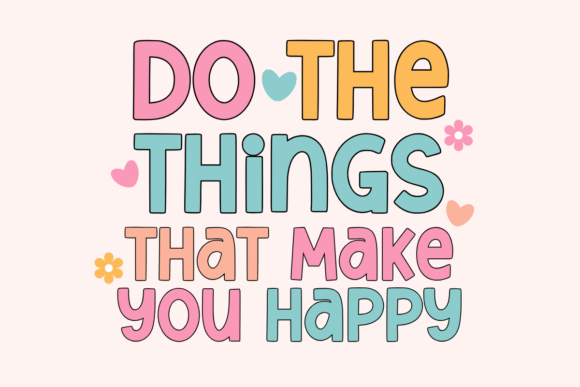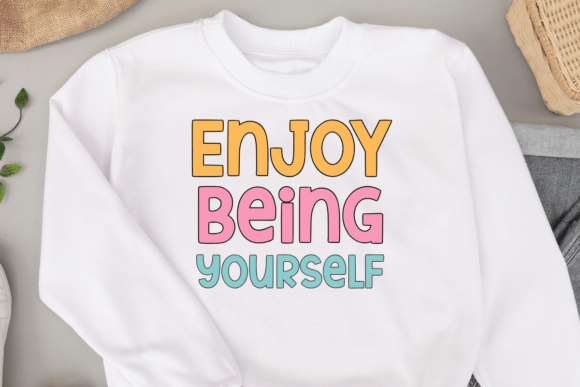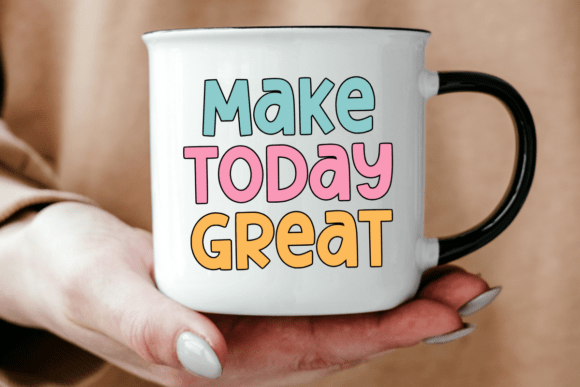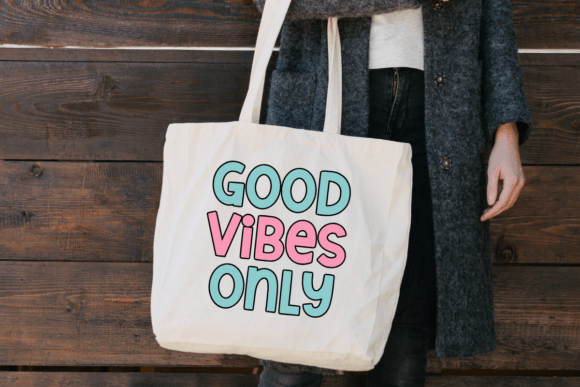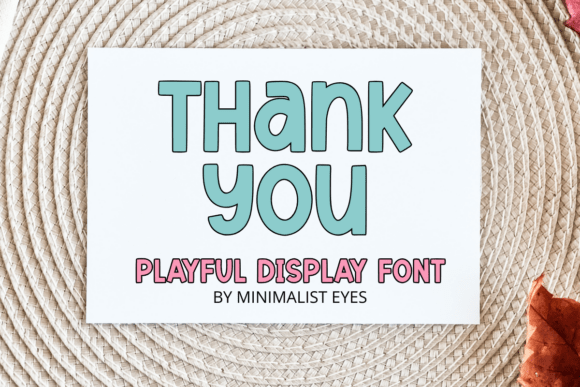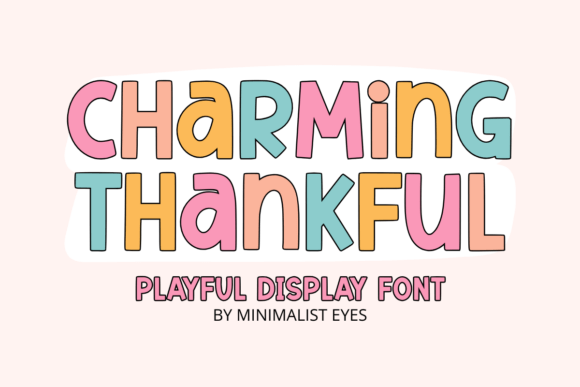
Introducing the Charming Thankful Font: Elevate Your Designs with a Cute and Bold Display Font
Are you tired of using the same old fonts in your designs? Do you want to add a touch of personality and whimsy to your creations? Look no further than the Charming Thankful Font! This adorable, bold display font is sure to bring your designs to life and make them stand out from the crowd.
The Unique Style of Charming Thankful
Charming Thankful is a one-of-a-kind font that exudes a sense of playfulness and charm. Its bold and eye-catching design makes it perfect for a variety of projects, from DIY crafts and party decorations to digital designs and marketing materials. The font’s unique style is sure to inspire your creativity and add a personal touch to your designs.
What Makes Charming Thankful So Special?
• Cute and Playful Design: Charming Thankful features a bold and playful design that is sure to capture attention and add a touch of whimsy to your designs.
• Unique and Beautiful Style: This font boasts a unique and beautiful style that will set your designs apart from the rest.
• Easy to Read: Despite its bold and playful design, Charming Thankful is easy to read, making it perfect for use in a variety of projects.
• Versatile: This font can be used in a wide range of projects, from digital designs and marketing materials to DIY crafts and party decorations.
How to Use Charming Thankful in Your Designs
Adding Charming Thankful to your designs is easy! Here are a few ways you can use this beautiful font:
• DIY Crafts: Use Charming Thankful to add a personal touch to your DIY crafts, such as handmade cards, gift tags, and decorations.
• Digital Designs: Add Charming Thankful to your digital designs, such as social media graphics, blog posts, and email marketing campaigns.
• Party Decorations: Use Charming Thankful to create eye-catching party decorations, such as banners, signs, and invitations.
• Marketing Materials: Add Charming Thankful to your marketing materials, such as brochures, flyers, and business cards.
Tips and Tricks for Getting the Most Out of Charming Thankful
Here are a few tips and tricks to help you get the most out of Charming Thankful:
• Experiment with Different Colors: Try pairing Charming Thankful with different colors to create a unique and eye-catching design.
• Use it as a Statement Font: Use Charming Thankful as a statement font to draw attention to a particular part of your design.
• Mix it with Other Fonts: Try mixing Charming Thankful with other fonts to create a unique and interesting design.
In conclusion, the Charming Thankful Font is a must-have for designers and crafters looking to add a touch of personality and whimsy to their creations. With its cute and bold design, unique style, and versatility, this font is sure to bring your designs to life and make them stand out from the crowd. So why wait? Get inspired by Charming Thankful and add it to your favorite designs today!